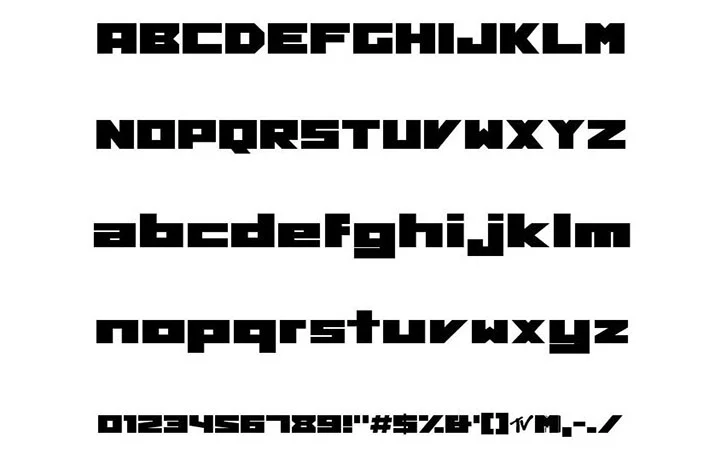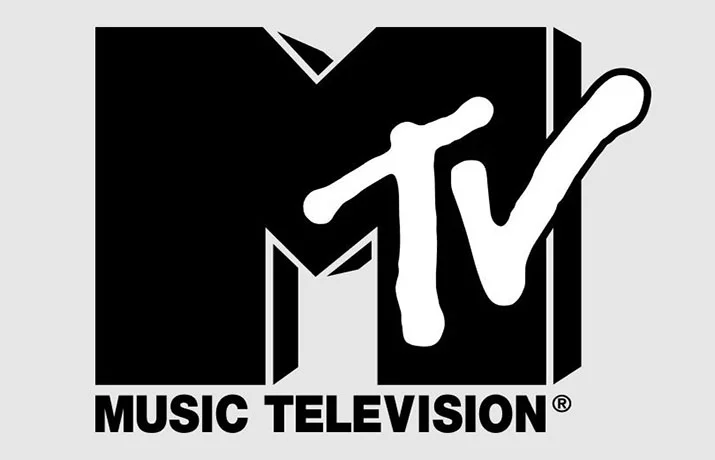
MTV Font is a logo typeface basically, MTV is an American cable television channel. It was officially launched on August 1, 1981, and is based in New York City.
It has helped define its brand identity due to its bold and innovative typography. The font features the “M” in the title and “TV” making it one of the most popular symbols in the culture.
| Style: | Logo, Techno, Display |
What is the MTV Font?
MTV Font is a logo typeface basically, MTV is an American cable television channel. It was officially launched on August 1, 1981, and is based in New York City.